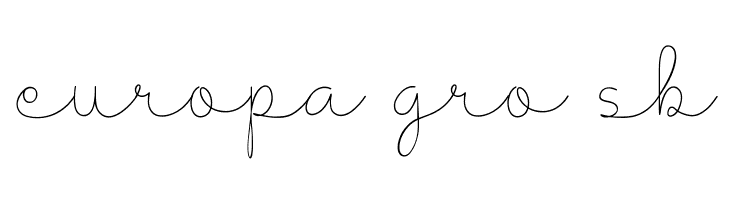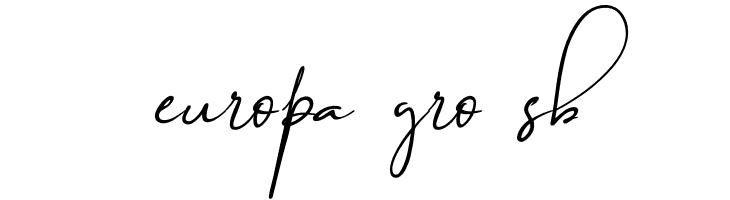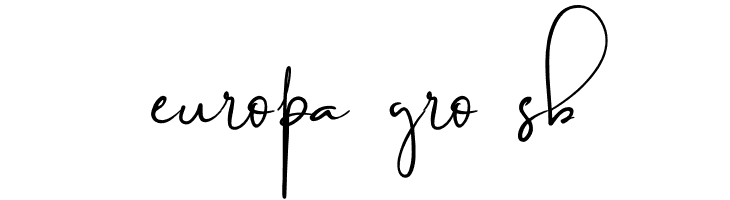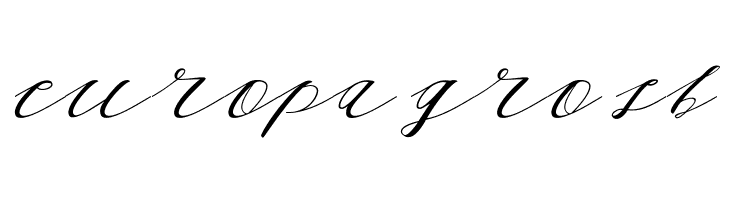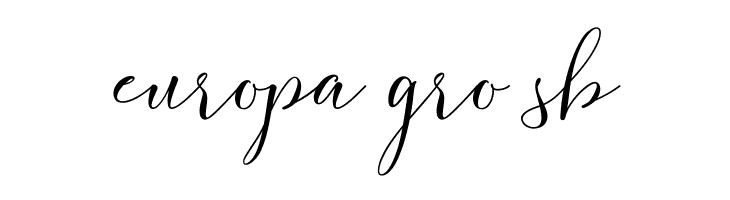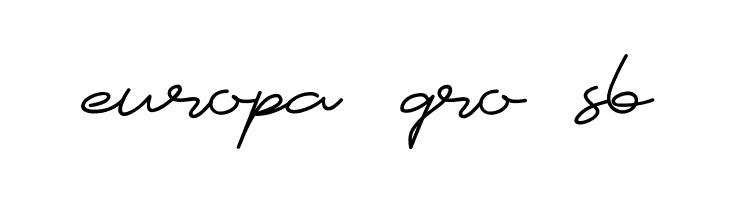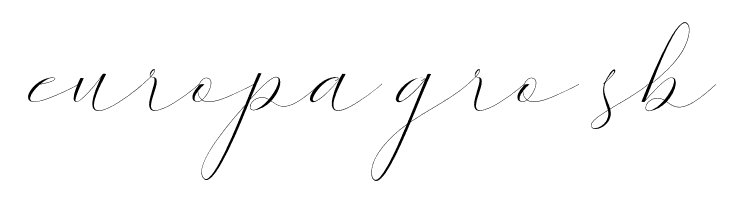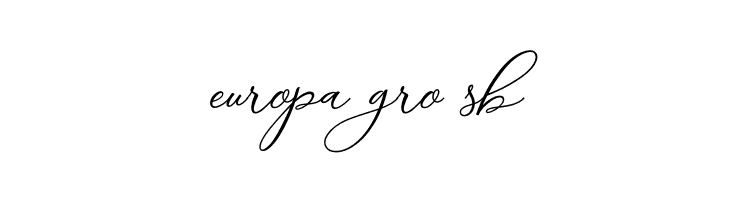
A graceful and elegant script font with fluid, cursive strokes.
An elegant, cursive script font with a flowing, handwritten style.
An elegant and ornate script font with intricate loops and swirls.
An elegant script font with fluid, cursive strokes and a refined, handwritten style.
An elegant, flowing script font with intricate loops and swashes, ideal for formal use.
A modern handwritten font with elegant, fluid strokes and a cursive style.
A delicate, elegant handwritten script with thin, flowing lines.
A delicate and flowing script font with elegant, continuous strokes.
A fluid and elegant script font with a handwritten, signature-like style.
An elegant and flowing script font with interconnected letters and a classic style.
A graceful and flowing script font with high contrast and elegant curves.
An elegant and flowing script font with high contrast and graceful curves.
An elegant script font with flowing, cursive letters and decorative swirls.
A delicate, flowing script font with elegant, thin strokes.
A modern, elegant handwritten font with fluid, slanted strokes.
A modern, elegant handwritten font with fluid, cursive letterforms.
An elegant script font with high contrast and flowing cursive style.
An elegant, flowing script font with graceful curves and decorative flourishes.
An elegant script font with flowing, interconnected letters and ornate uppercase characters.
A graceful and fluid cursive script font with elegant, interconnected strokes.
An elegant script font with flowing lines and intricate swashes.
An elegant, flowing script font with delicate, thin strokes and a modern calligraphic style.
An elegant script font with flowing, intricate loops and swashes.
A graceful and elegant script font with flowing, interconnected characters.
An elegant, flowing script font with ornate, cursive strokes.
( Fontscafe.com - fontscafe.com/ )
A bold, cursive font with interconnected characters and a classic yet modern script style.
( Graphix Line Studio )
A sophisticated script font with elegant, flowing cursive letters.
( Gregorius Wisnu )
A dynamic cursive font with elegant, flowing letterforms and a modern classic appeal.
( Guiltype Studio - MIZAN - graphicriver.net/item/good-morning-purple/22116135 )
A graceful and flowing script font with elegant, interconnected characters.
( Halim Antoni - fontbundles.net/halimstudio )
An elegant script font with flowing, cursive style and intricate flourishes.
( Halim Antoni - fontbundles.net/halimstudio )
An elegant, flowing script font with high contrast and delicate strokes.
( Ink creative - creativemarket.com/inkcreativeart/ )
( Intellecta Design - Paulo W - new.myfonts.com/foundry/Intellecta_Design/?refby=paulow )
A dynamic, cursive script font with high contrast and elegant flow.
A dynamic, cursive script font with bold, sweeping strokes and high contrast.
An elegant, flowing script font with intricate loops and swirls.